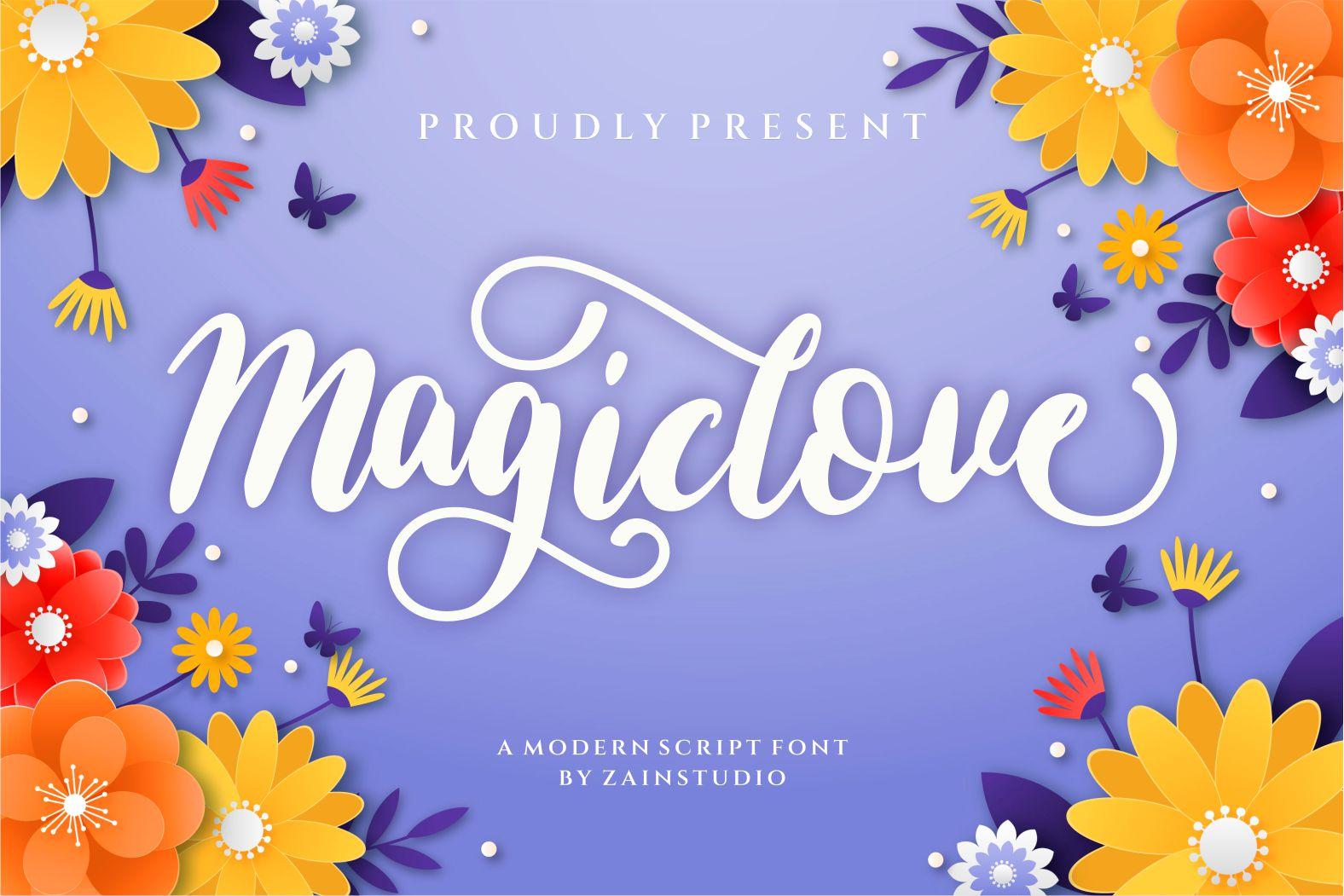
Magic Love Font Description
Magic Love is a modern script font that is readable, friendly and stylish. It is defined by smooth curves and is perfect for fashion branding or editorial designs. This font is PUA encoded which means you can access all of the glyphs and swashes with ease!